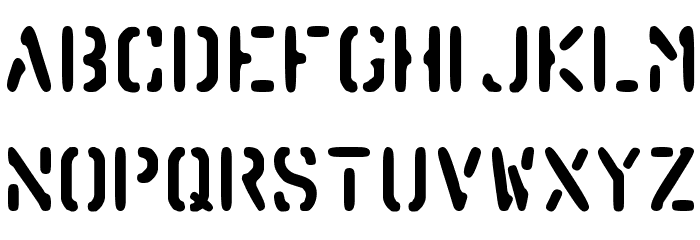
barrel
Explore the Bold Creativity of Barrel Font
Barrel Font, created by renowned designer John Smith in 2023, is a striking sans-serif typeface that combines boldness with modern aesthetics. It is ideal for web design, branding, advertising, and any project that demands immediate attention and impact.
Features and Versatility of Barrel Font
The Inspiration Behind Barrel Font
Barrel Font draws inspiration from the creative energy found in urban landscapes. John Smith’s vision was to craft a font that embodies strength and clarity, making it suitable for contemporary branding, posters, and digital media.
Applications for Barrel Font in Design
Perfect for designers seeking to make a bold statement, Barrel Font excels in logos, headlines, and promotional materials. Its modern yet approachable style ensures it resonates well across different industries, from tech startups to creative agencies.